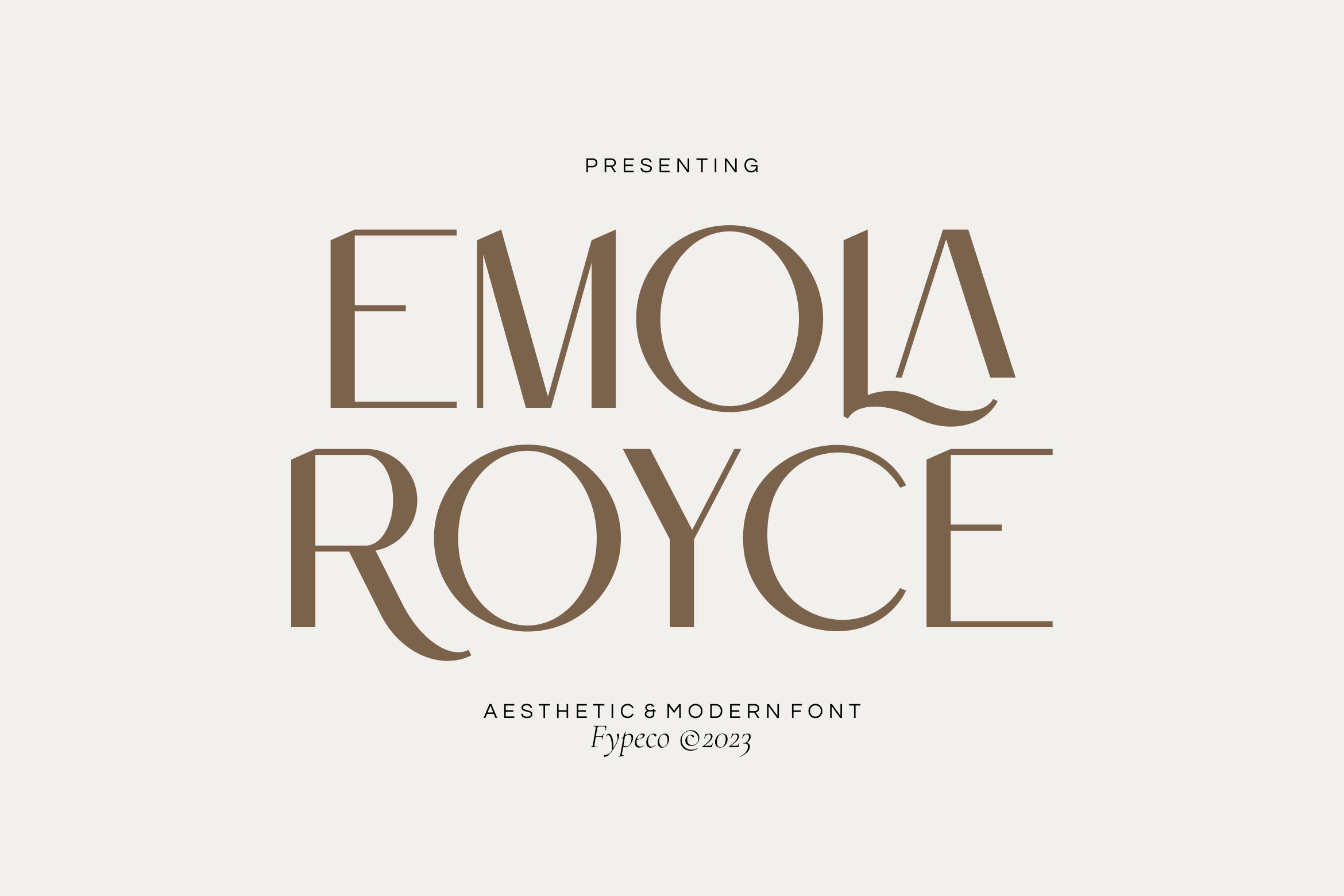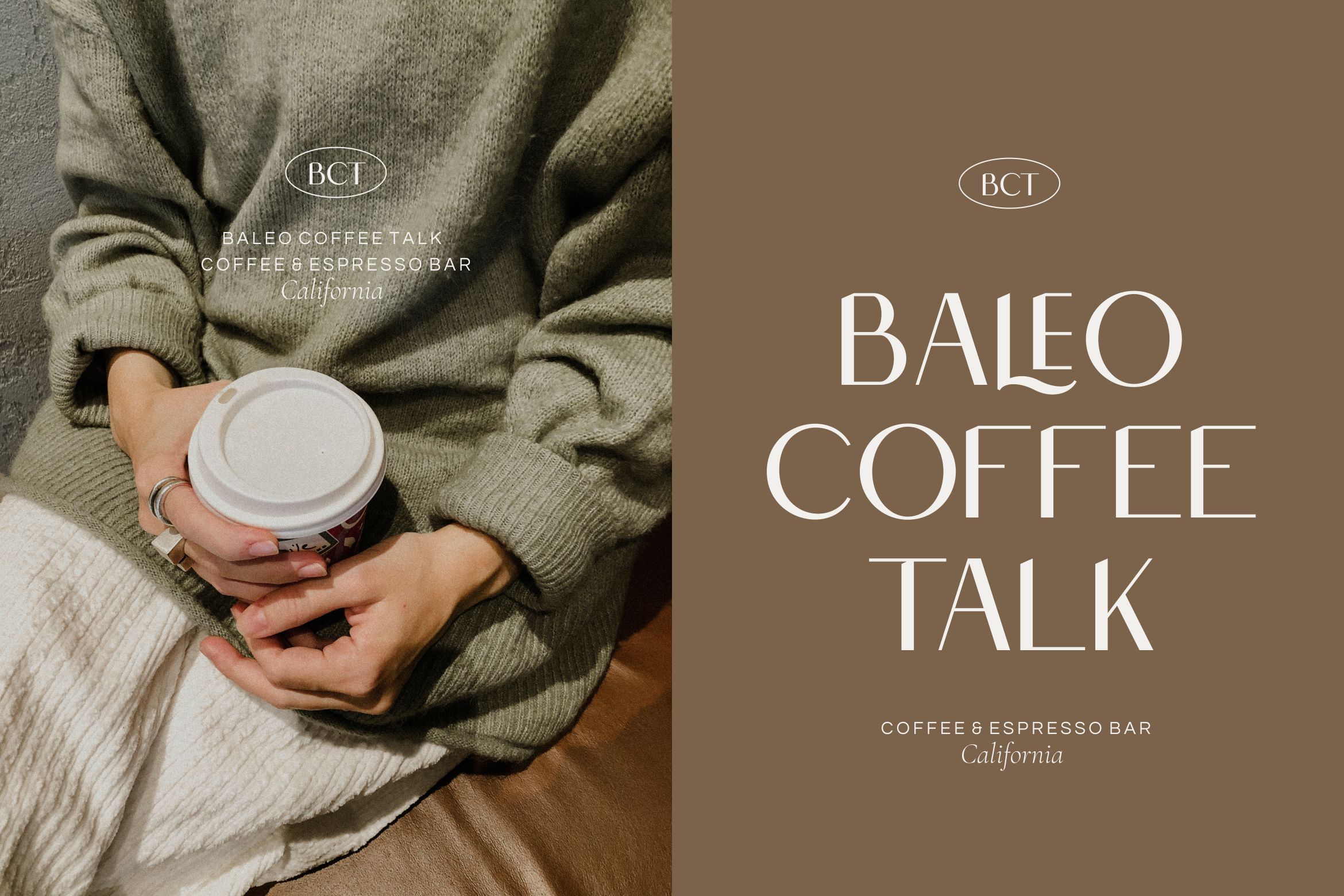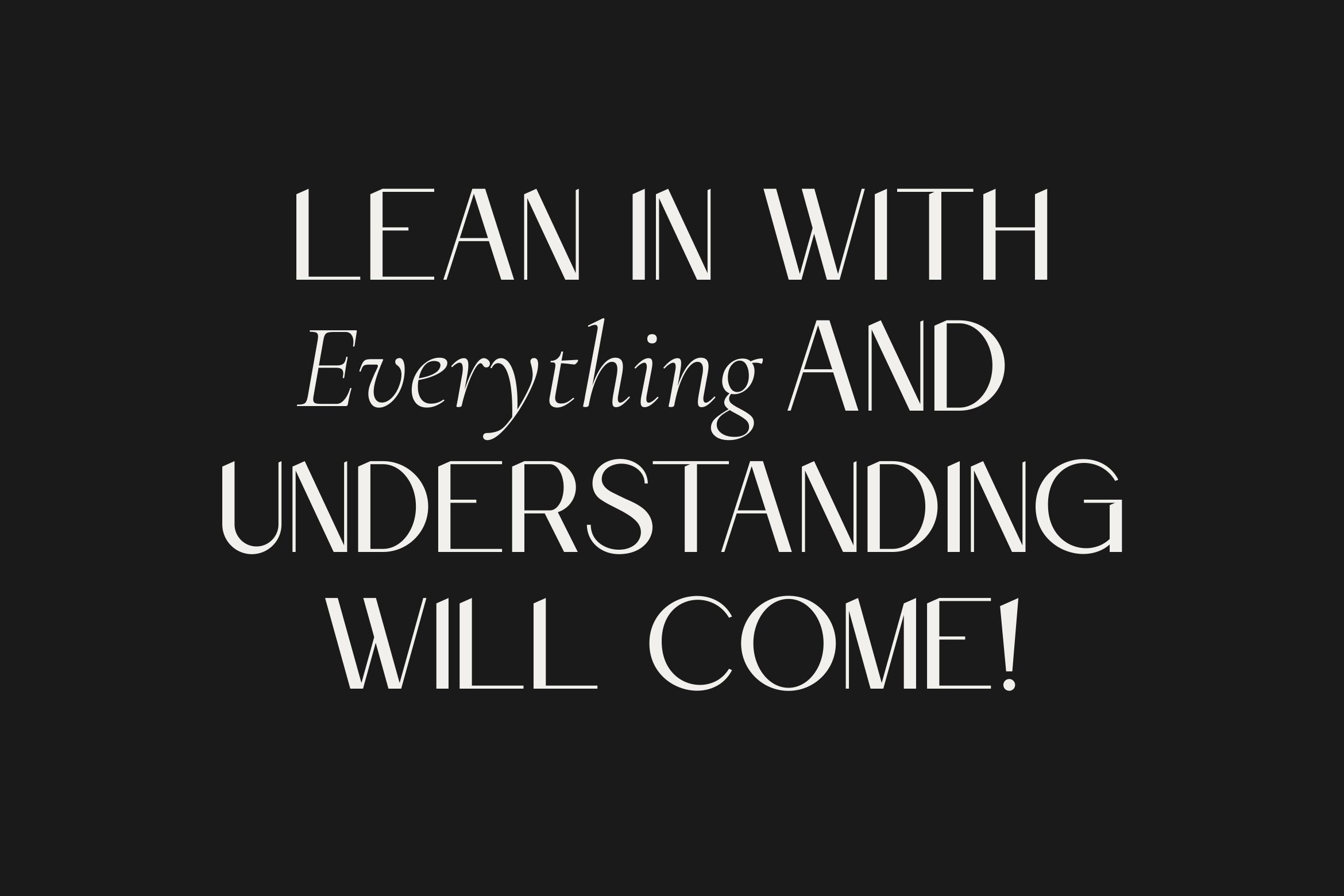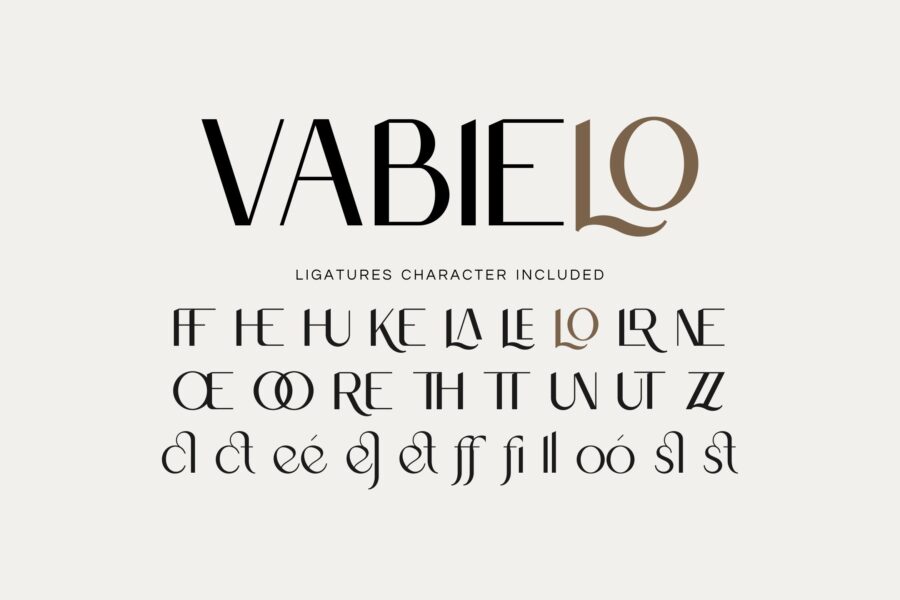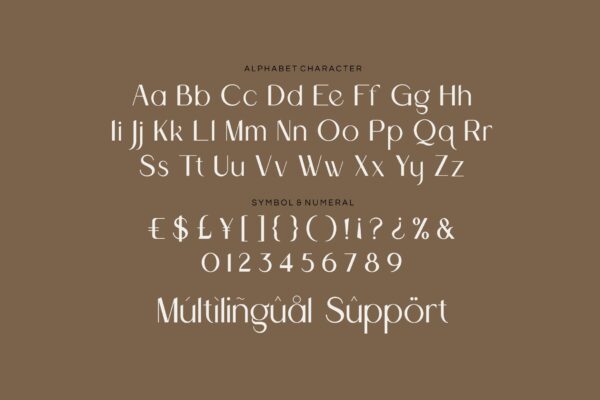
Emola Royce is an elegant modern serif display font designed to bring a sense of luxury and refined aesthetics to your visual projects. With its high contrast strokes, graceful curves, and stylish ligatures, this typeface exudes sophistication—making it perfect for branding, high-end packaging, fashion editorials, and upscale advertising.
It features a full set of upper and lowercase letters, numerals, symbols, multilingual support, and a variety of unique ligatures to enhance your typography. Emola Royce strikes a perfect balance between contemporary flair and timeless elegance, making it a go-to choice for creatives who seek to make a bold and classy visual statement.
Emola Royce